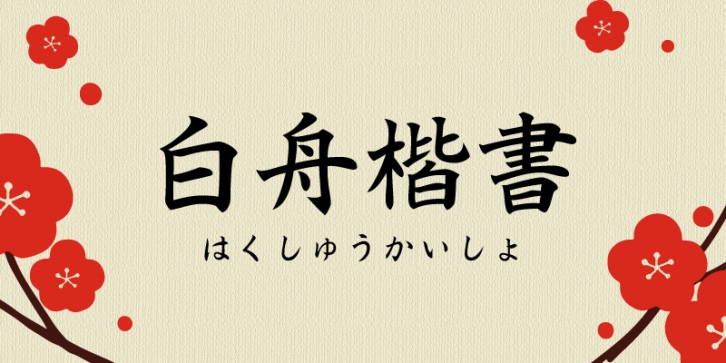
Drawn by the master of a long established seal shop, this kaisho (regular calligraphic style) brush-script typeface has well ordered letter forms.
Supported glyphs include: 1,026 Kyoiku-yo-kanji (Ideographic Characters for Education), alphanumeric, full-width hira-gana and kata-kana, and miscellaneous symbols.
Hakusyu Fonts started business as a seal shop. We offer brush-script typefaces in the traditional regular (kaisho) calligraphic style and the “Design Brush-script†series, which includes the Kyoen and Oohige typefaces, which are very popular and frequently used in creative fields such as publicity and game design.